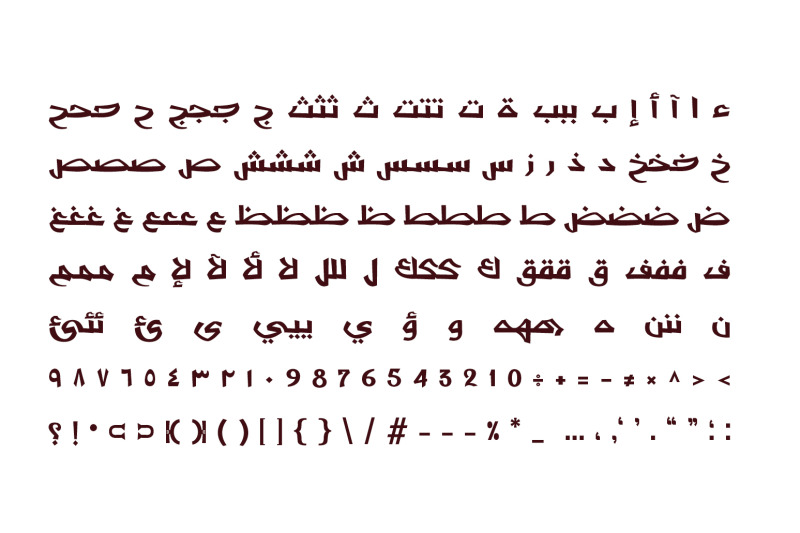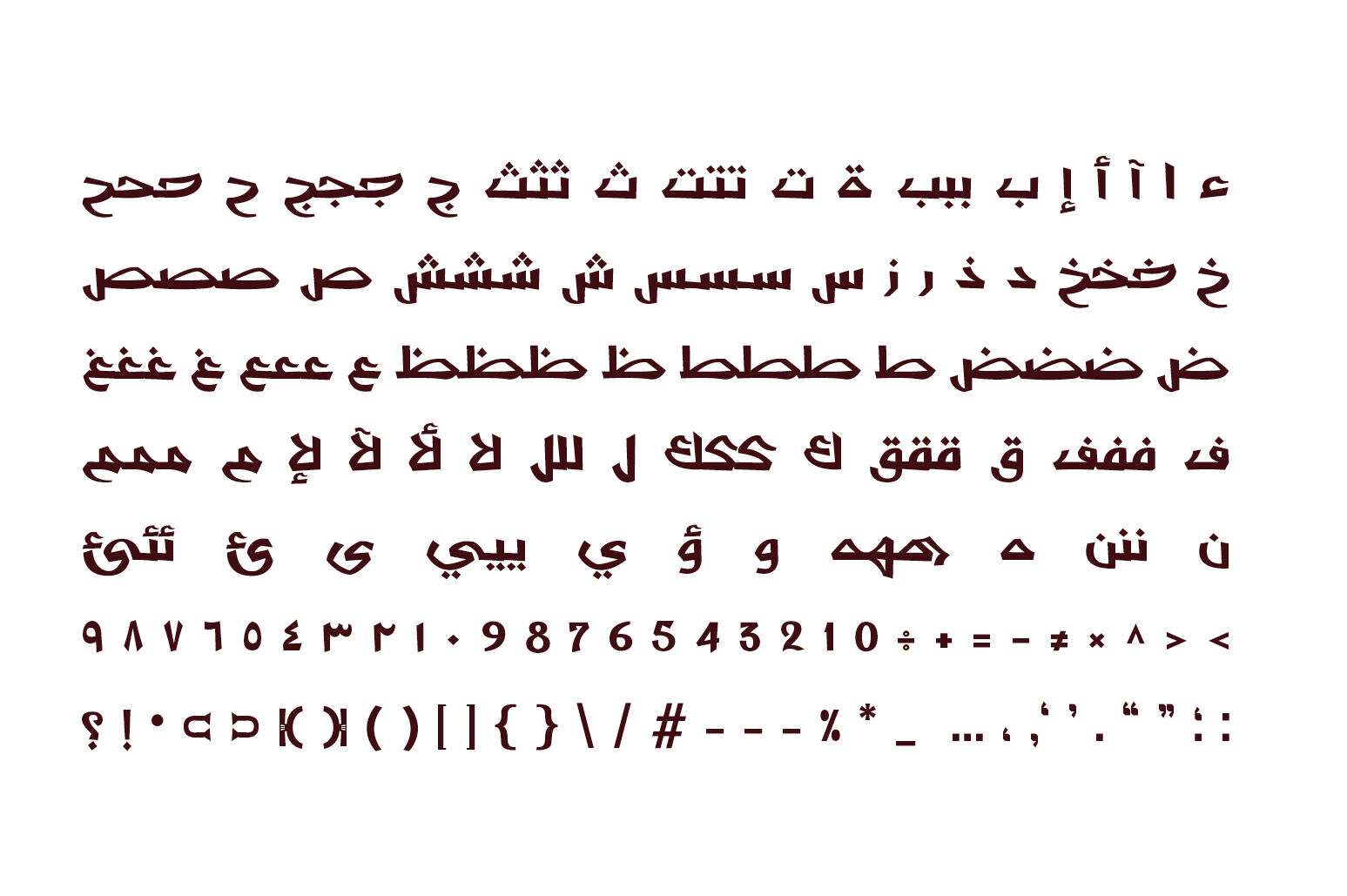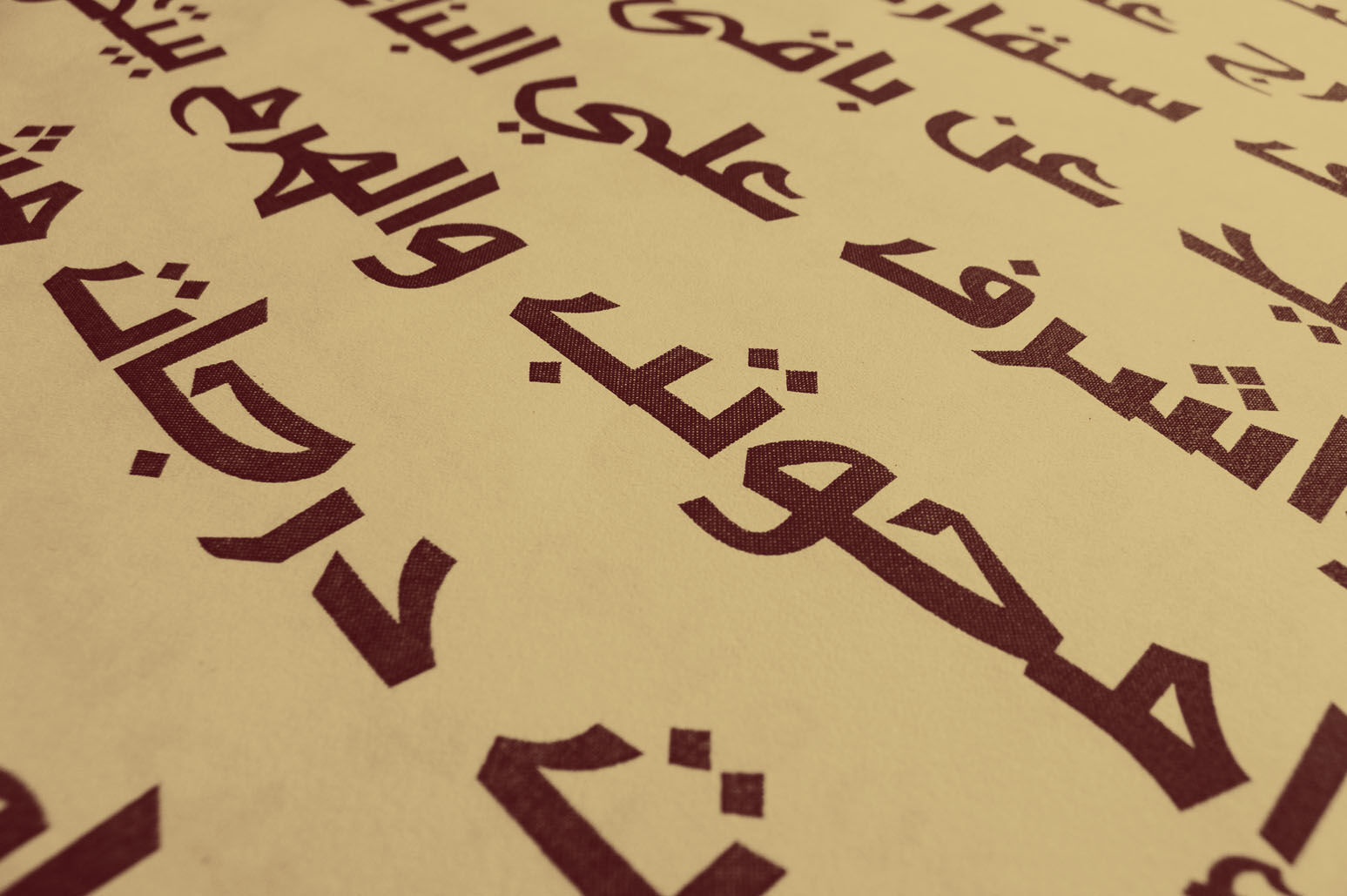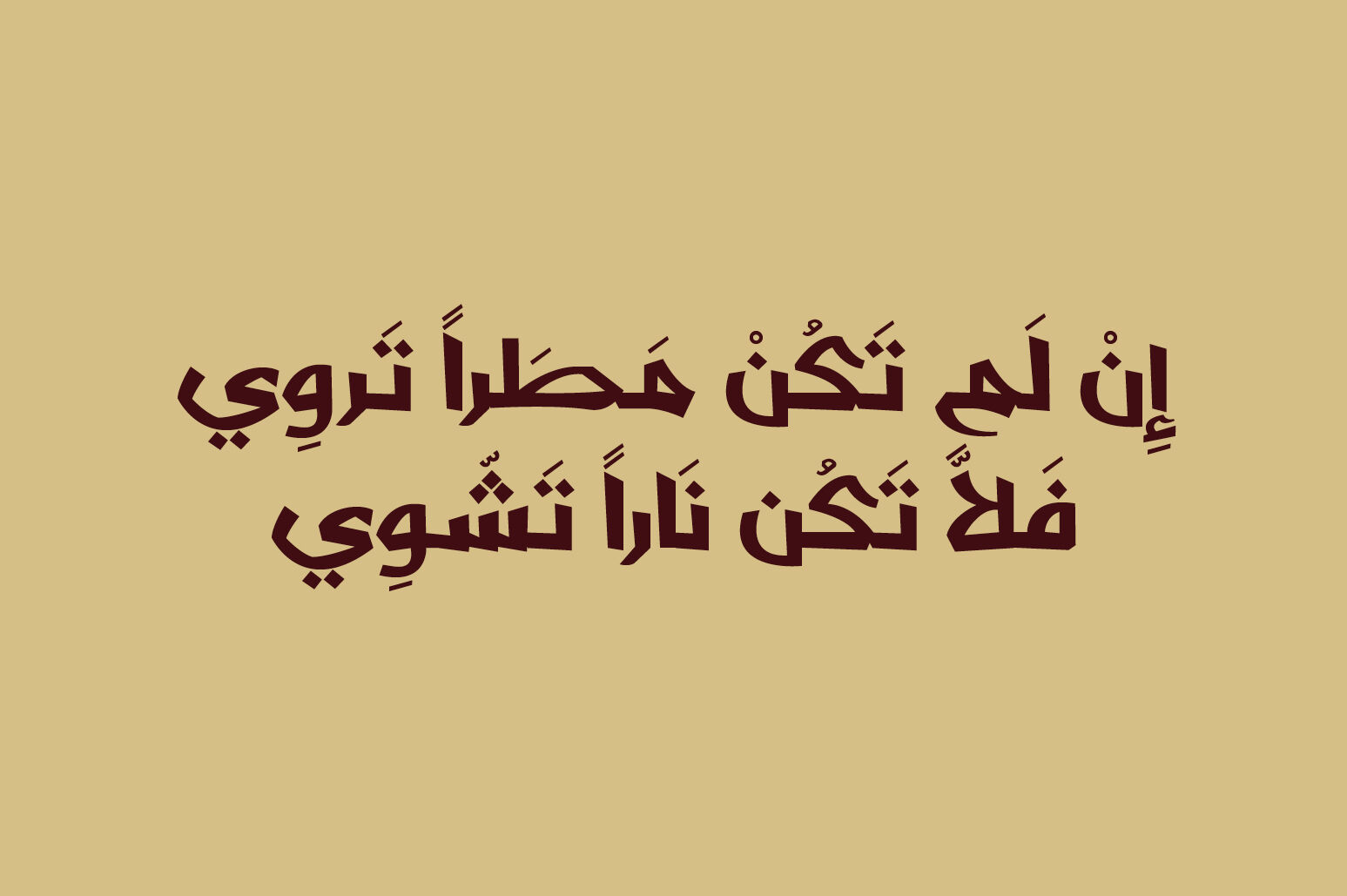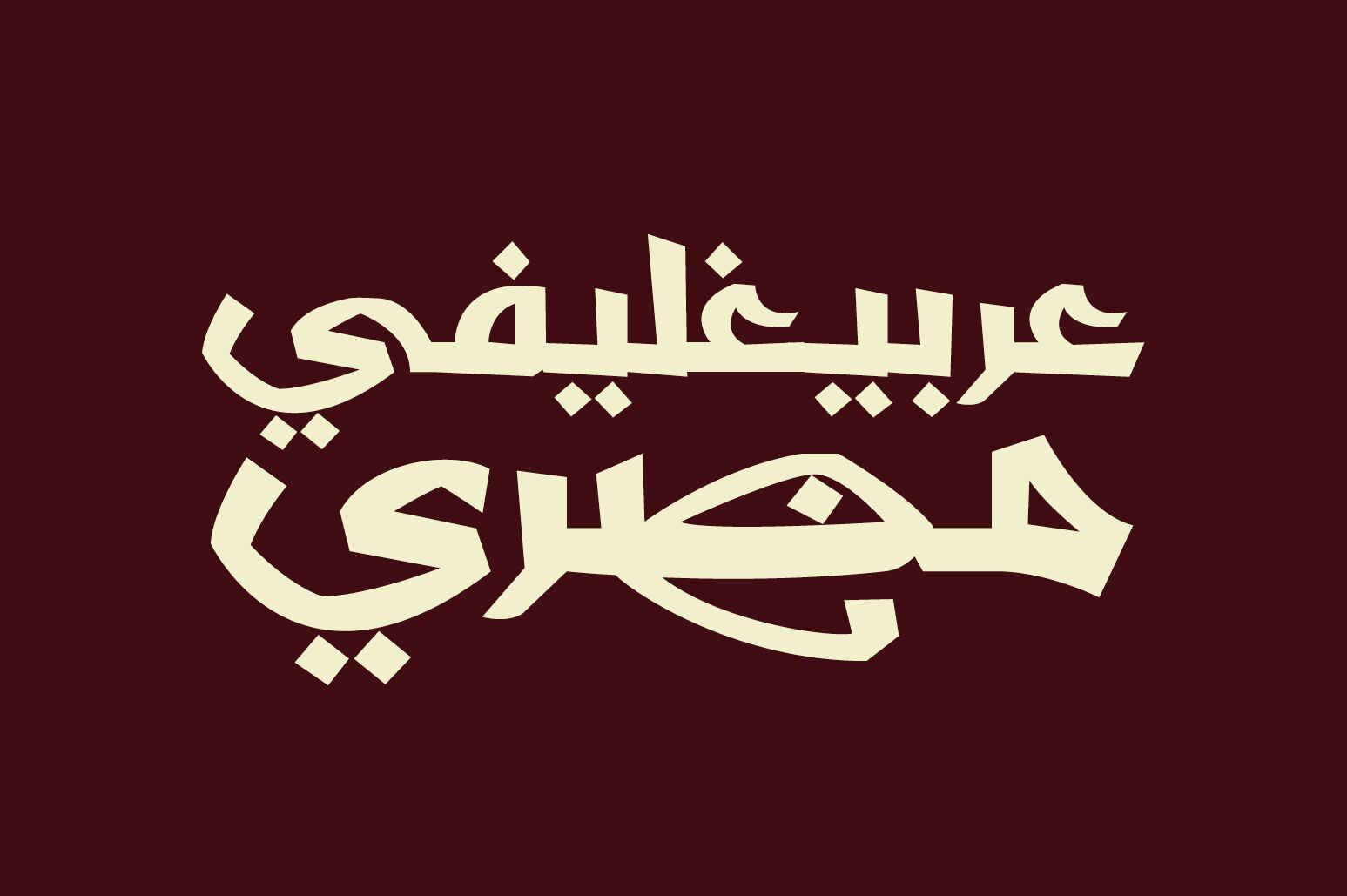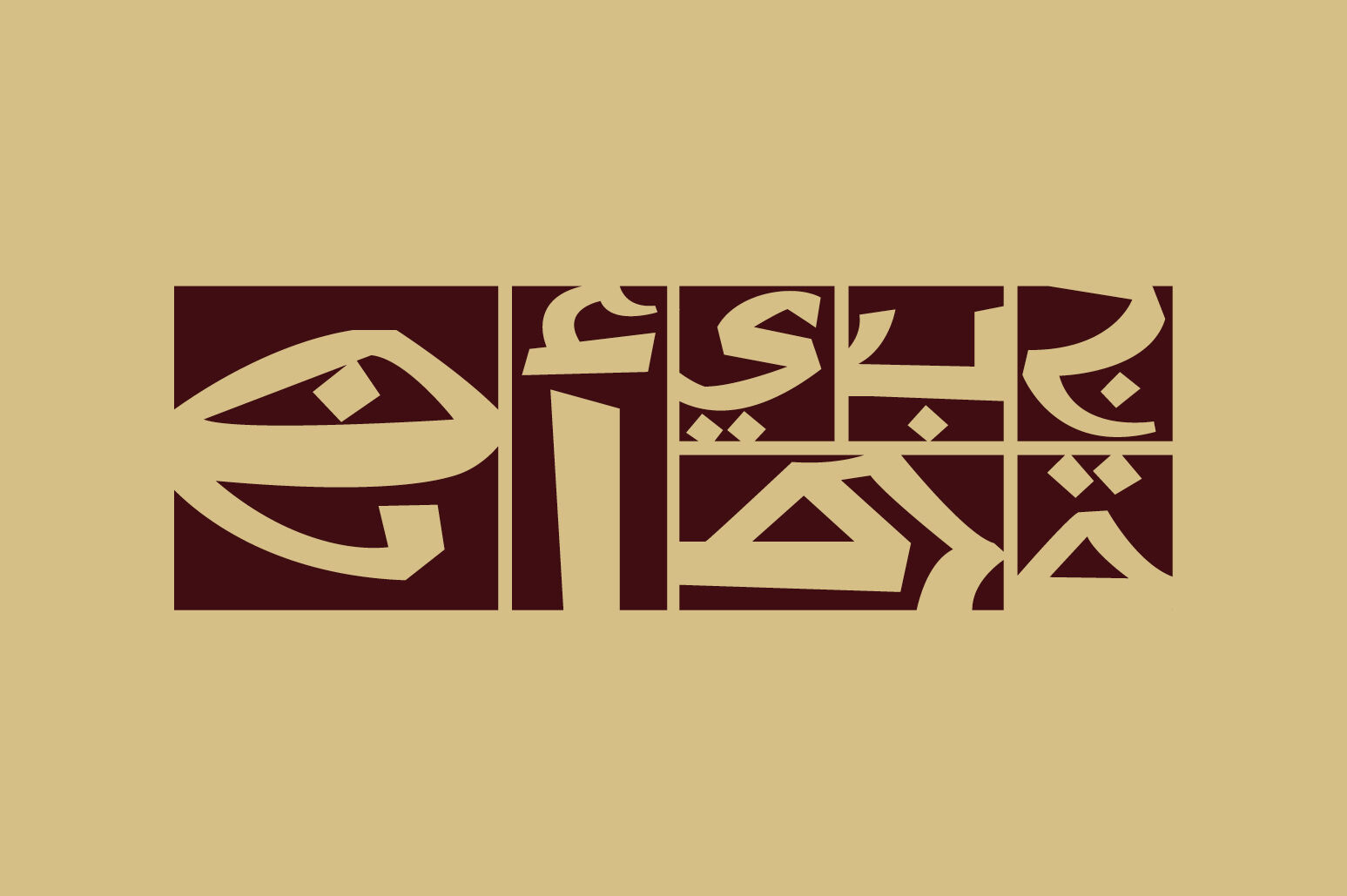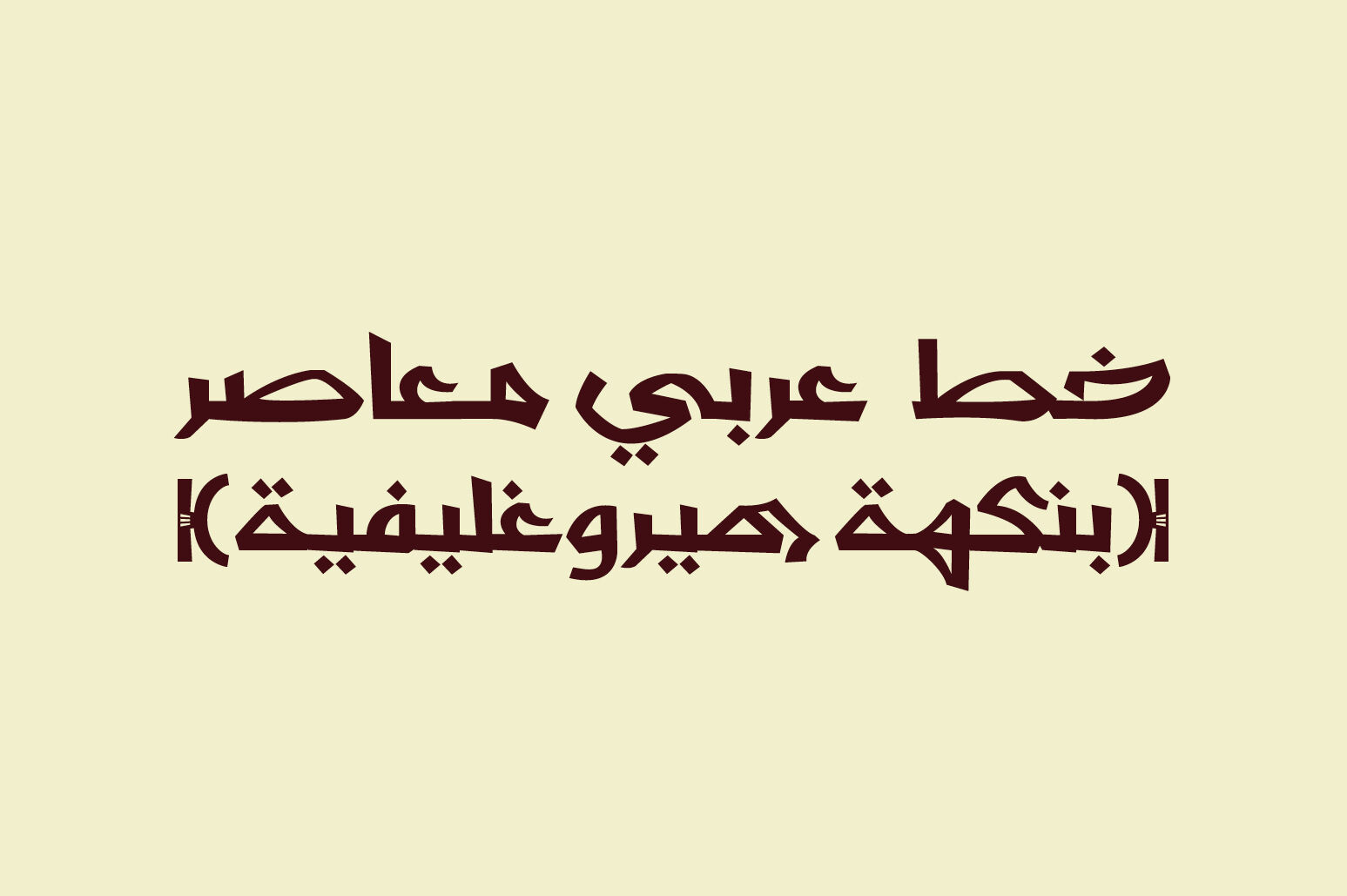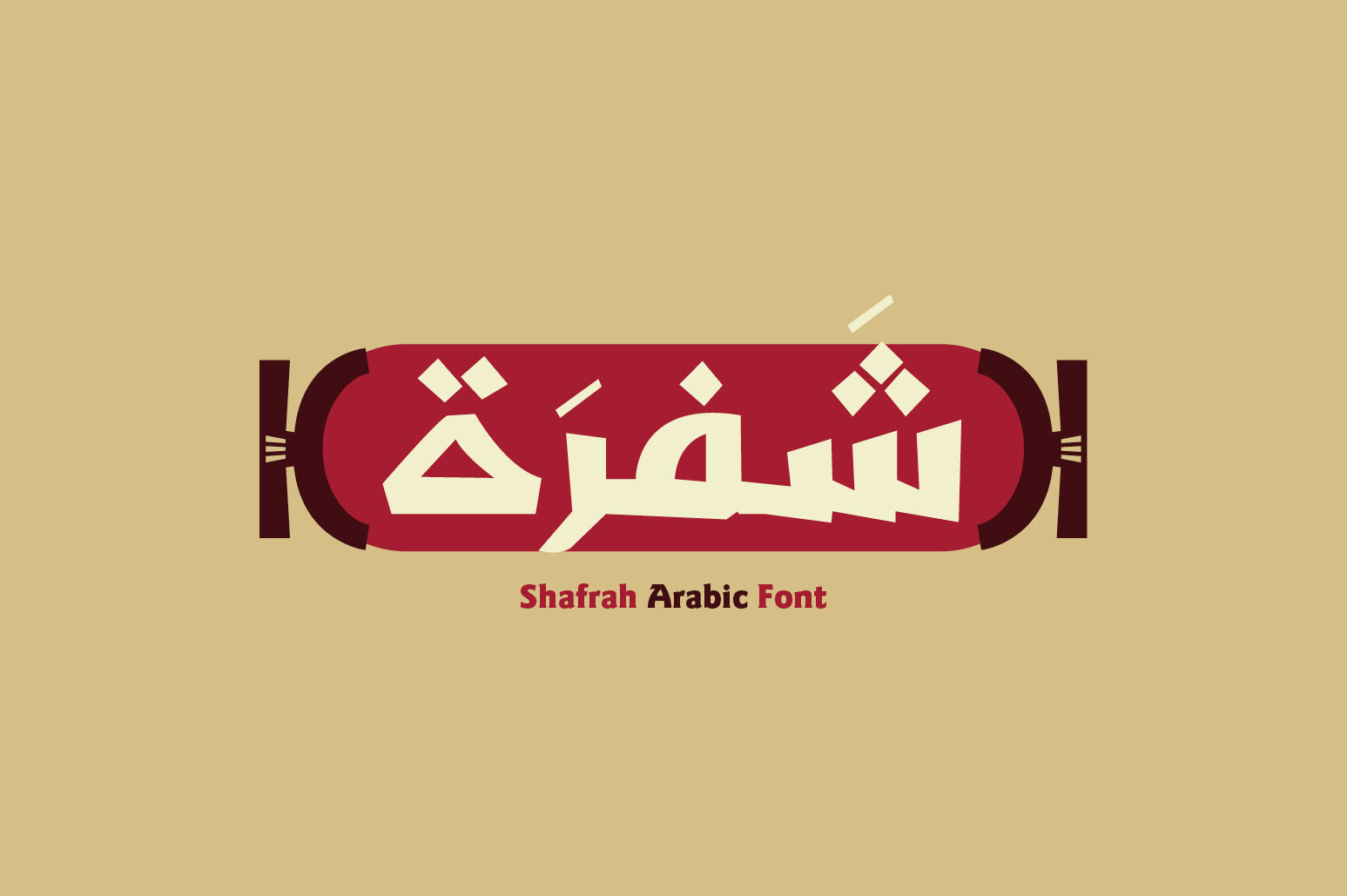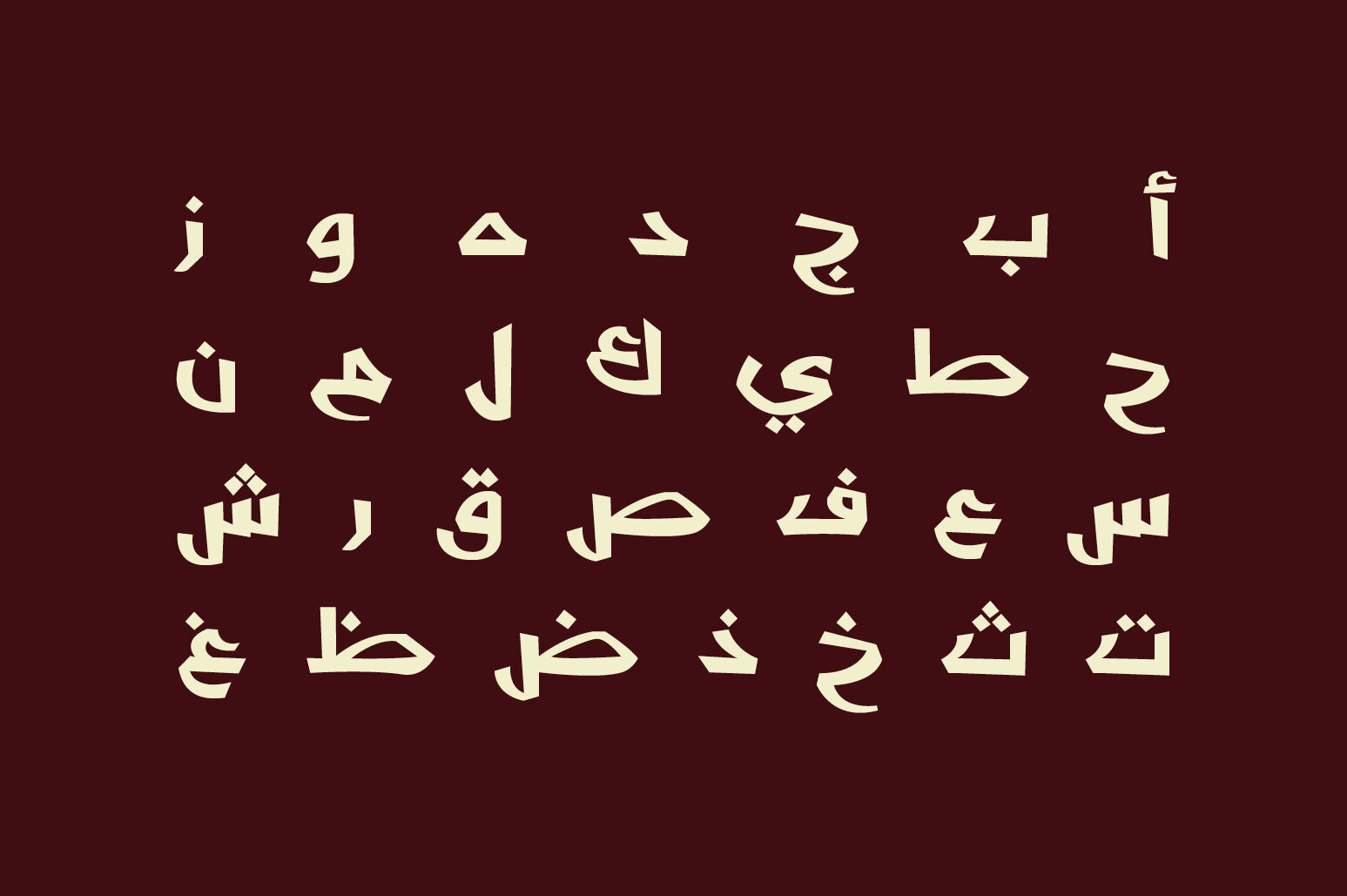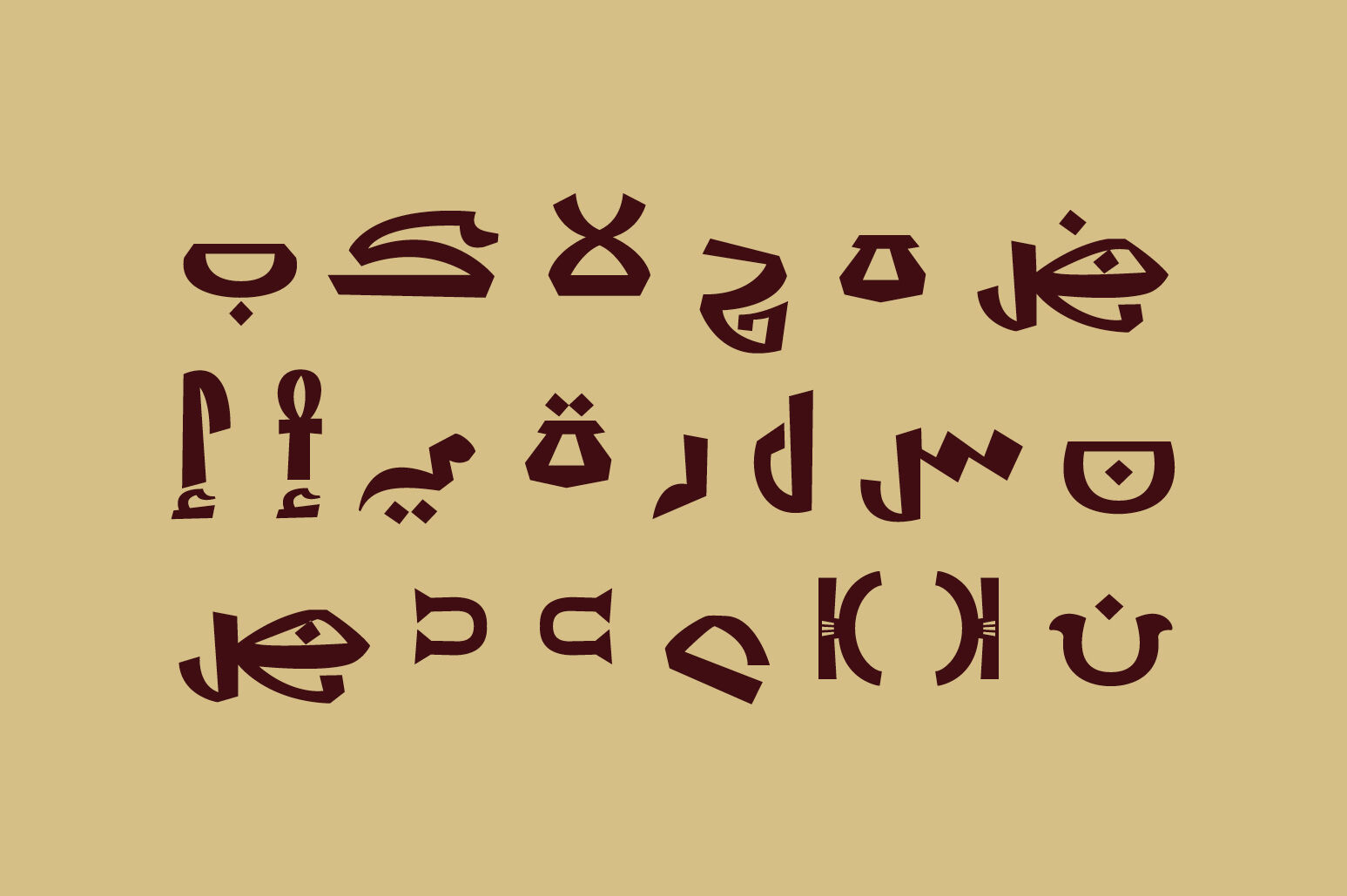
Shafrah - Arabic Font
Shafrah is an Arabic font that is inspired by the Hieroglyphs of Ancient Egypt. The word ‘Shafrah’ is the Arabic for Encrypted Code. Shafrah suits a various range of design applications such as advertising, social media, web design and print.